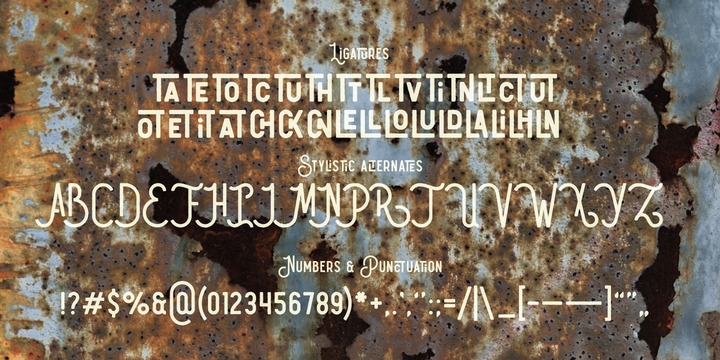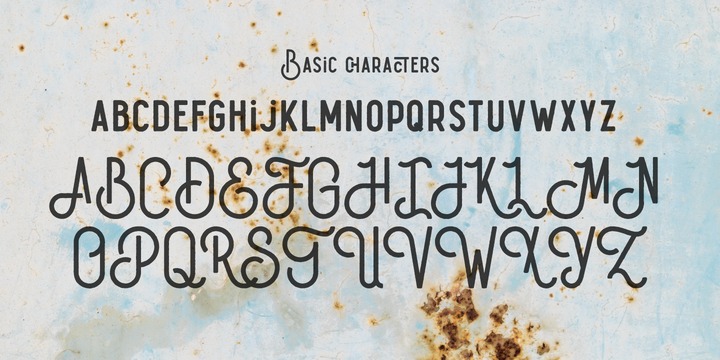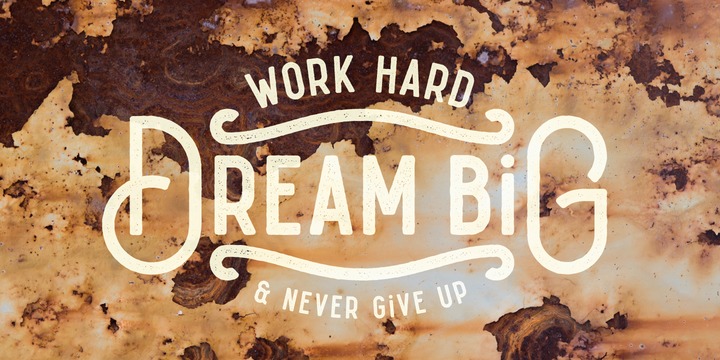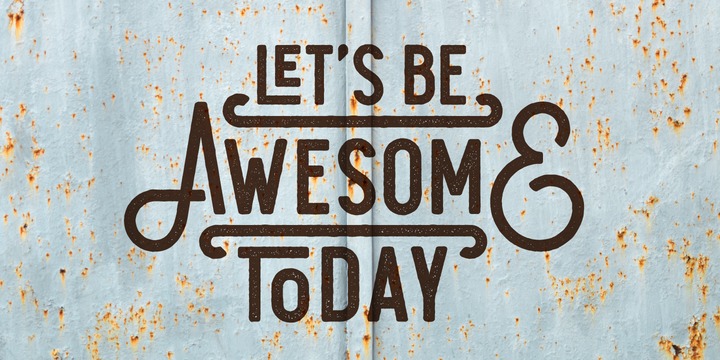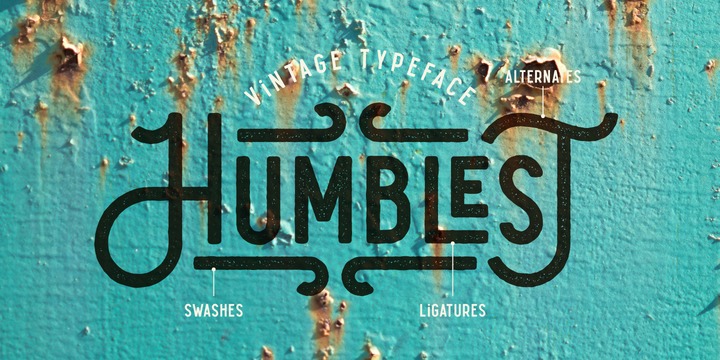
Hello! Here is another one vintage typeface named Humblest. It has useful OpenType features: 20 stylistic alternates for caps and 30 ligatures. Also it comes with additional font file with swashes. For small sized text the simple font version included Humblest Clean (it is without noisy effect inside the characters).